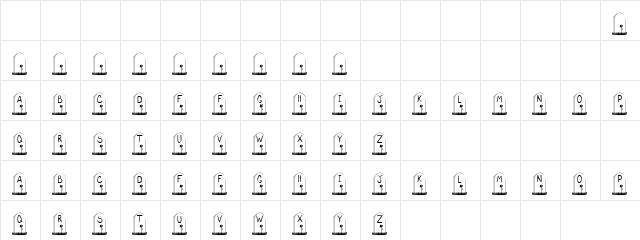
The Miles Stone Regular
Design Context for The Miles Stone Typeface
The Miles Stone is a composed and adaptable typeface that performs quietly and consistently across a wide range of design contexts.